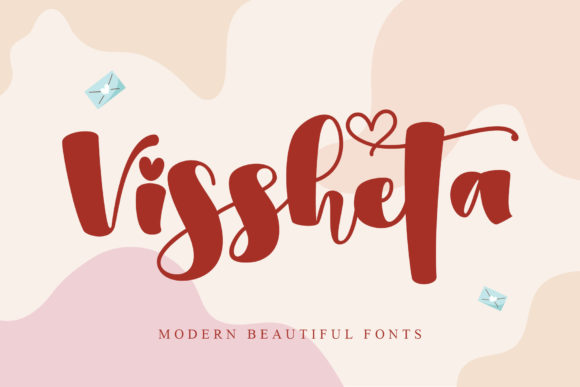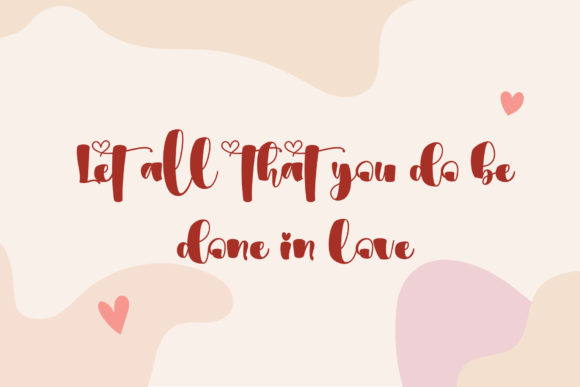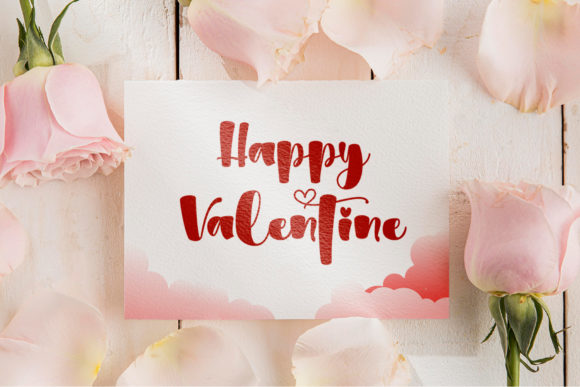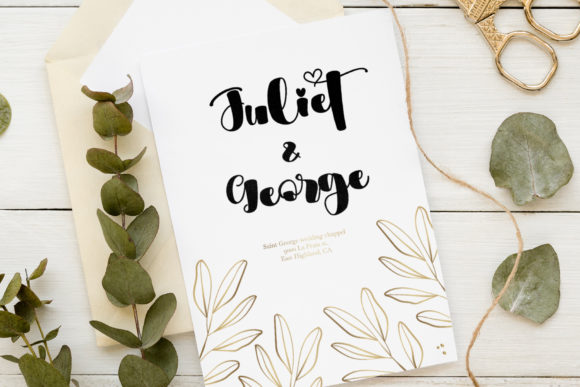
About Vissheta Font
Vissheta is a trendy, chic and unique looking handwritten font. It is PUA encoded which means you can access all of the glyphs and swashes with ease! Add it confidently to your projects, and you will love the results.